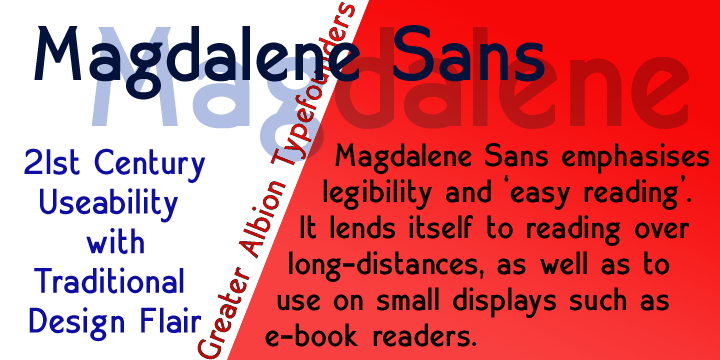
Magdalene is a classically designed sans-serif face for the 21st century. It’s designed to offer clear and immediately legible lettering for signage and poster use which still has a touch of character and elegance about it. Magdalene is also ideal for the display of web pages and legible text on small LCD panels. Use Magdalene to combine traditional design attributes with modern technology.